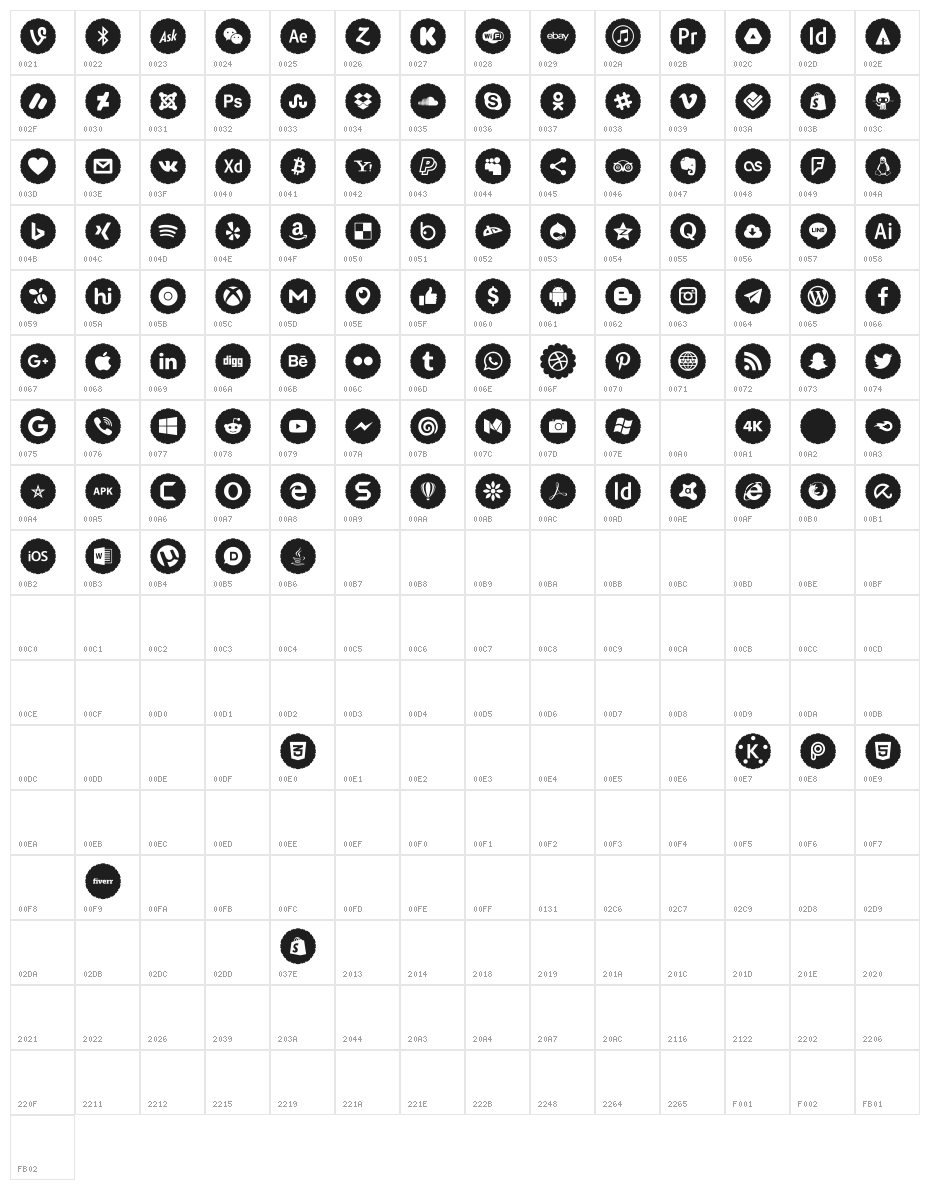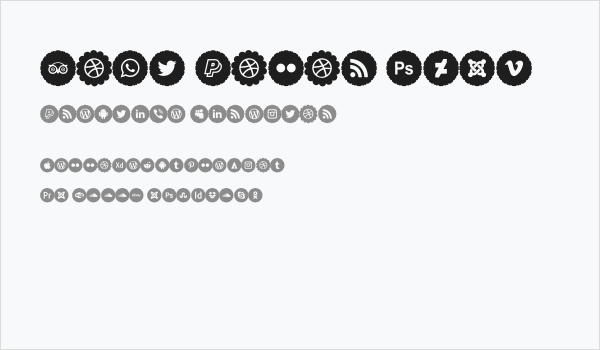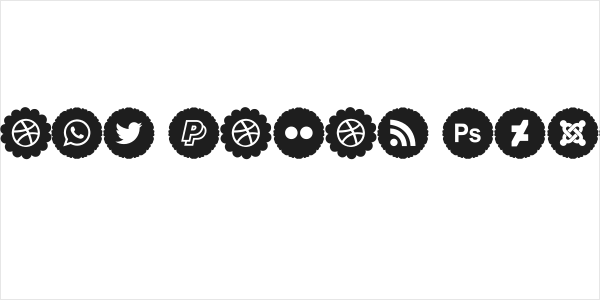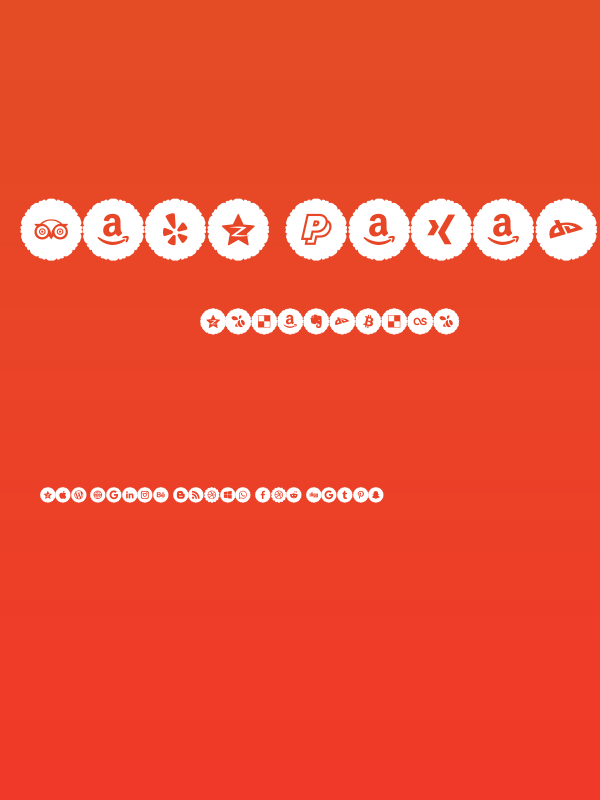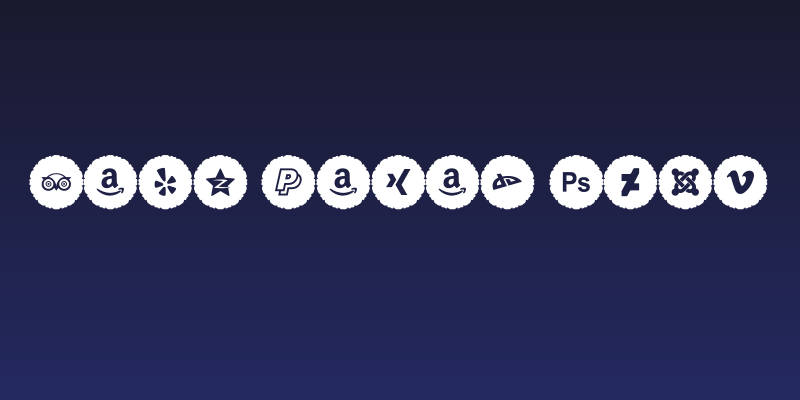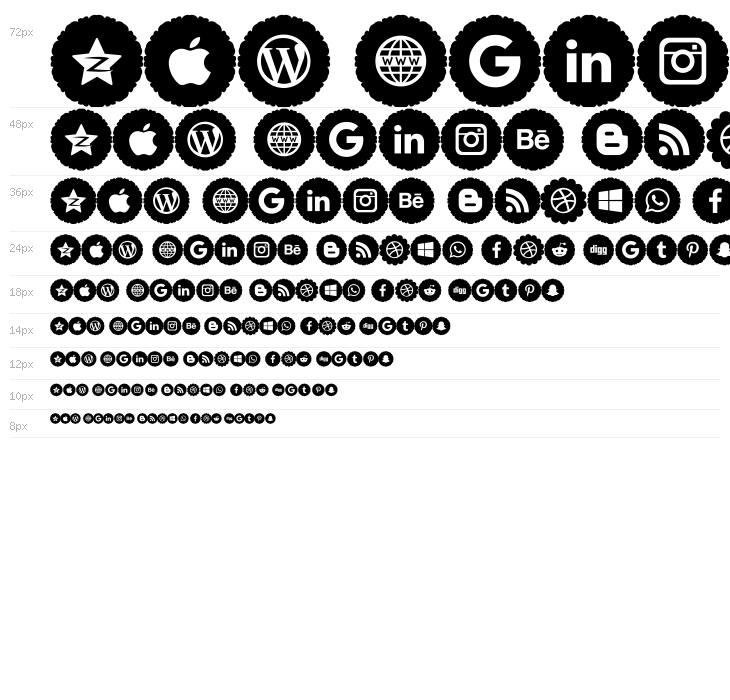
Font Color 2019 Font
Font Color 2019 Description
A set of solid black circular icons with scalloped edges, each containing a white symbol representing various social media platforms, apps, and web services. The icons are uniform in size and style, featuring simple, recognizable logos in a monochrome palette.
| Overall Style | Modern, Minimalistic |
| Use Case | Icons for digital interfaces, social media links, app buttons |
| Proposed Projects | Use in website footers, app interfaces, social media link sections, and digital branding materials. |